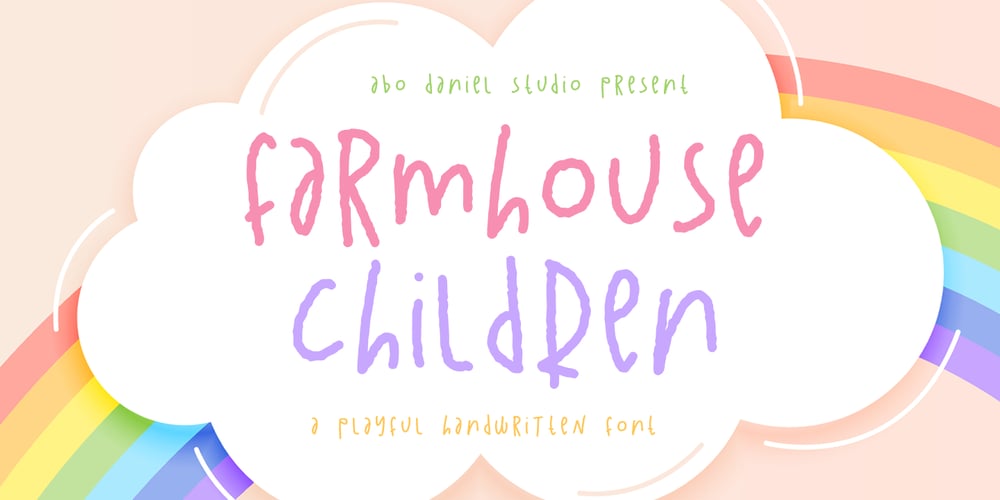
Farmhouse Children
Farmhouse Children font
Farmhouse Children Font Family was designed by Abo Daniel and published by Abo Daniel. Farmhouse Children contains 1 styles and family package options. introducingFARMHOUSE CHILDREN- a playful handwritten font -This font is designed for crafters.It is great for branding, packaging, quotes, t-shirt design, card, banners, and anything of craft project that needs kid’s style.The combination of uppercase and lowercase is great, unique, and very fun.Let’s play with this awesome font!Features:- Uppercase- Lowercase- Numeral- Multilingual- PUA encodedI hope you love it.regards,Abo Daniel Studio